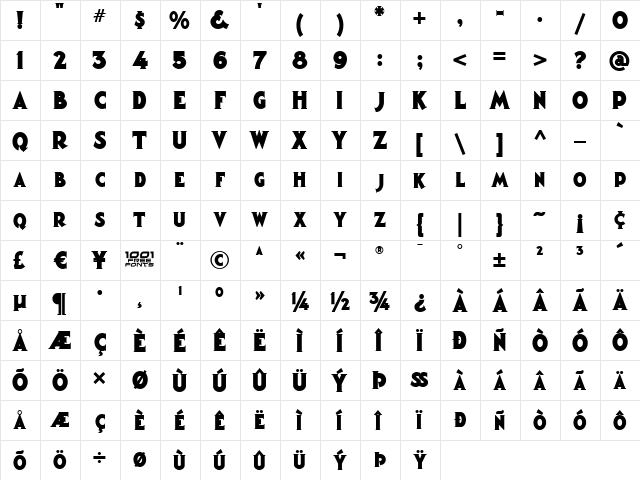
Magic Lantern NF Regular
| Foundry | Nick's Fonts |
| Designer | Nick Curtis |
Design Context for Magic Lantern NF Typeface
Magic Lantern NF takes a measured approach to typography — its balanced proportions and neutral character make it a reliable workhorse for both digital and print work.